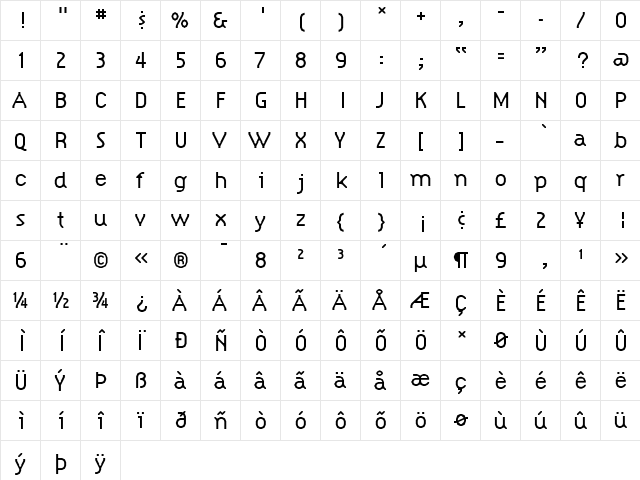
CitizenLight Regular
Design Context for CitizenLight Typeface
CitizenLight is a composed and adaptable typeface that performs quietly and consistently across a wide range of design contexts. The delicate stroke weight brings airiness and refinement to layouts.